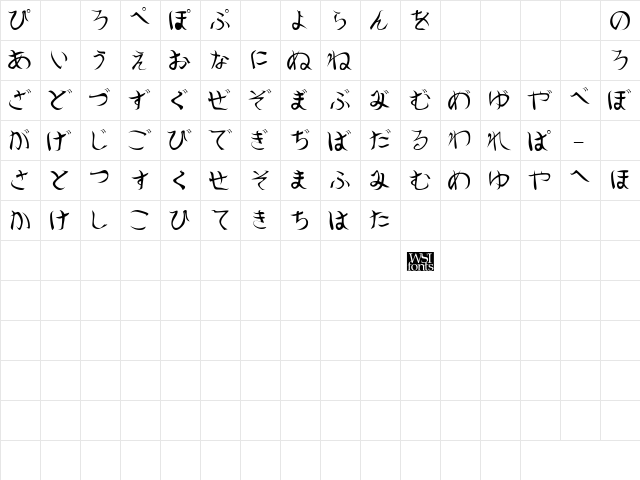
Kasmir Regular
Design Context for Kasmir Typeface
Kasmir is a composed and adaptable typeface that performs quietly and consistently across a wide range of design contexts.